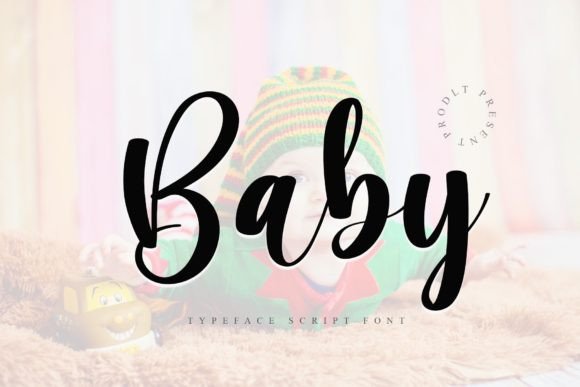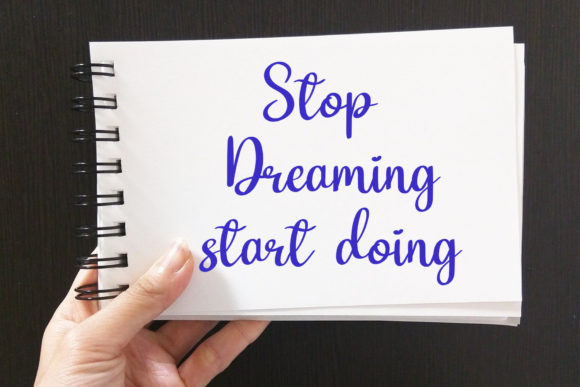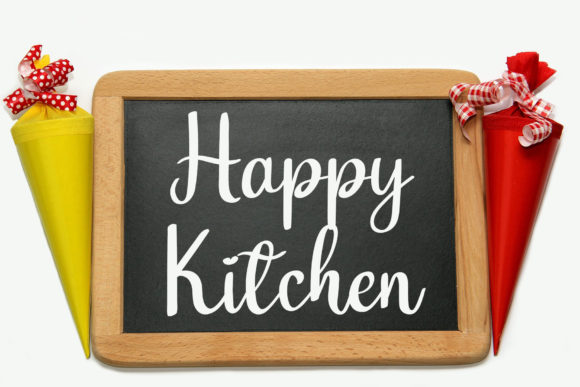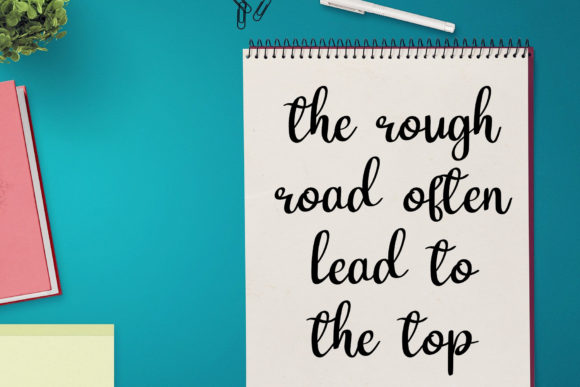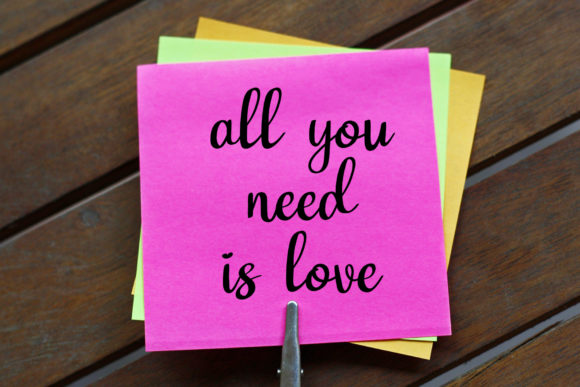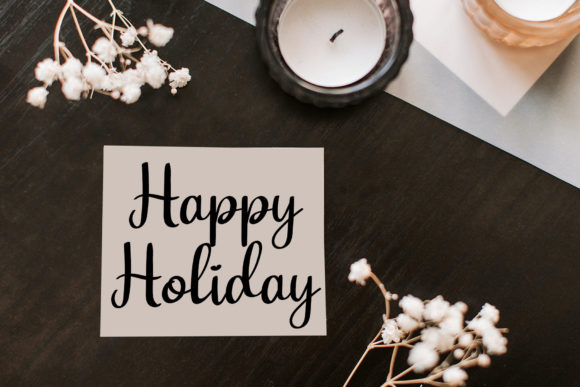
Birthday Font
About Birthday Font
Birthday is a beautiful handwritten font. It is perfect for a wide variety of projects such as wedding invitations, greeting cards, billboards, logos, business cards, and any other design that requires a handwritten touch.